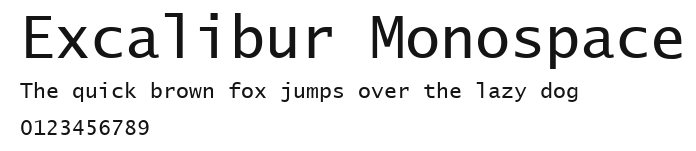
Excalibur Monospace Preview
About Excalibur Monospace.ttf
Excalibur Monospace.ttf is a modern, elegant sans-serif font designed for ultimate readability and visual harmony. Perfect for branding, headlines, web design, and print materials.